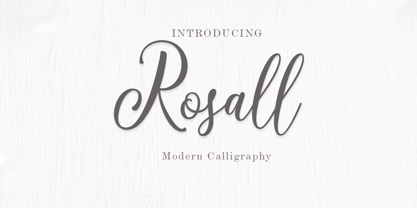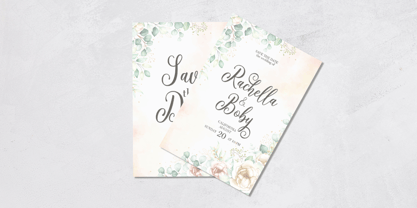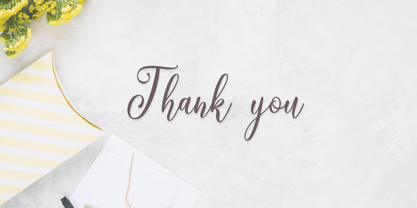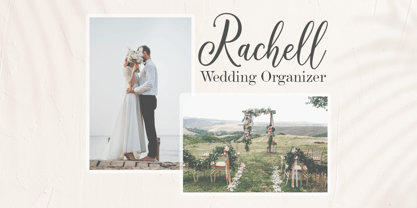
Rosall
by Amarlettering
The Rosall Font Family was designed by Amar Lettering and published by Amarlettering. Rosall contains 1 styles.
Immerse yourself in the captivating allure of Rosall Script, a finely crafted modern font which marries a delicate touch with a noticeably flamboyant flourish. This gem springs from smooth, uninterrupted brushstrokes and gentle curves, transforming each lean letter into a manifestation of sophistication and finesse. Rosall Script confidently anchors itself as the epitome of choice for those with discerning judgment, gracing them with a stylish richness. This font’s sophisticated distinction adds an enigmatic magic to sumptuous wedding invitations, lavish branding themes, and articulate editorial designs. Doubtlessly more than just a typeface, Rosall Script stands as a vogue emblem.
Rosall